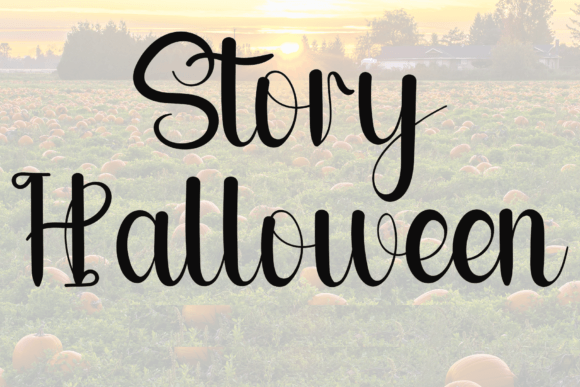
Unleash the Alluring Charm of Story Halloween Font: A Masterpiece for Your Creative Endeavors
In the realm of visual artistry, fonts hold a captivating power, transforming mere words into expressive masterpieces. Among this enchanting world of typography, Story Halloween Font emerges as a true gem, a script font that weaves a spellbinding tale with each stroke.
Crafted with meticulous precision, Story Halloween merges the timeless elegance of calligraphy with a modern, refreshing twist. Its enchanting curves and graceful flourishes evoke a sense of classic sophistication, while its unwavering legibility ensures clarity and readability in any context.
As you embark on your creative journey with Story Halloween, be prepared to be swept away by its versatility. Whether you're designing a captivating CV, crafting an enchanting logo, or weaving a magical invitation, this font will effortlessly elevate your creations to new heights.
With Story Halloween as your creative companion, you'll unlock a world of possibilities. Its carefully crafted characters add a touch of enchantment to any project, whether it's a personal journal, a captivating social media post, or a stunning website.
Experience the Magic of Story Halloween:
- Elevate Your CV: Make a lasting impression with a CV that exudes professionalism and creativity. Story Halloween's elegant script will showcase your qualifications and skills in an unforgettable manner.
- Craft Enchanting Logos: Unleash your imagination and design logos that radiate charm and distinction. Story Halloween's timeless beauty will ensure your brand stands out from the crowd.
- Create Magical Invitations: Invite your guests to an unforgettable event with invitations adorned with Story Halloween's enchanting characters. Its whimsical touch will set the tone for a truly special occasion.
- Design Captivating Social Media Posts: Capture the attention of your followers with social media posts that sparkle with creativity. Story Halloween will transform your words into visually captivating messages that resonate with your audience.
- Craft Stunning Websites: Create websites that captivate visitors from the very first click. Story Halloween's elegant script will guide them through your content, ensuring an immersive and enjoyable experience.
Story Halloween is more than just a font; it's an open invitation to unleash your creativity and embark on an artistic adventure. Let its enchanting curves and graceful flourishes inspire you to create masterpieces that leave a lasting impression.
Embrace the captivating allure of Story Halloween Font today and unveil the infinite possibilities that await you.